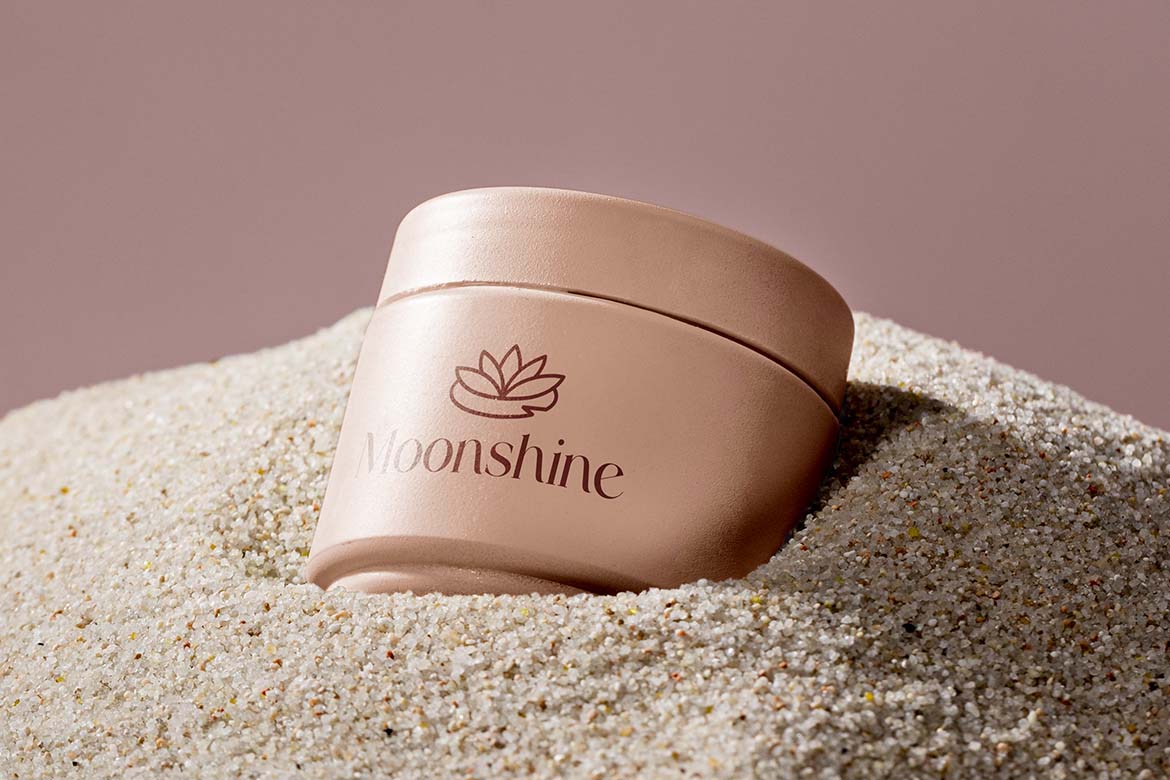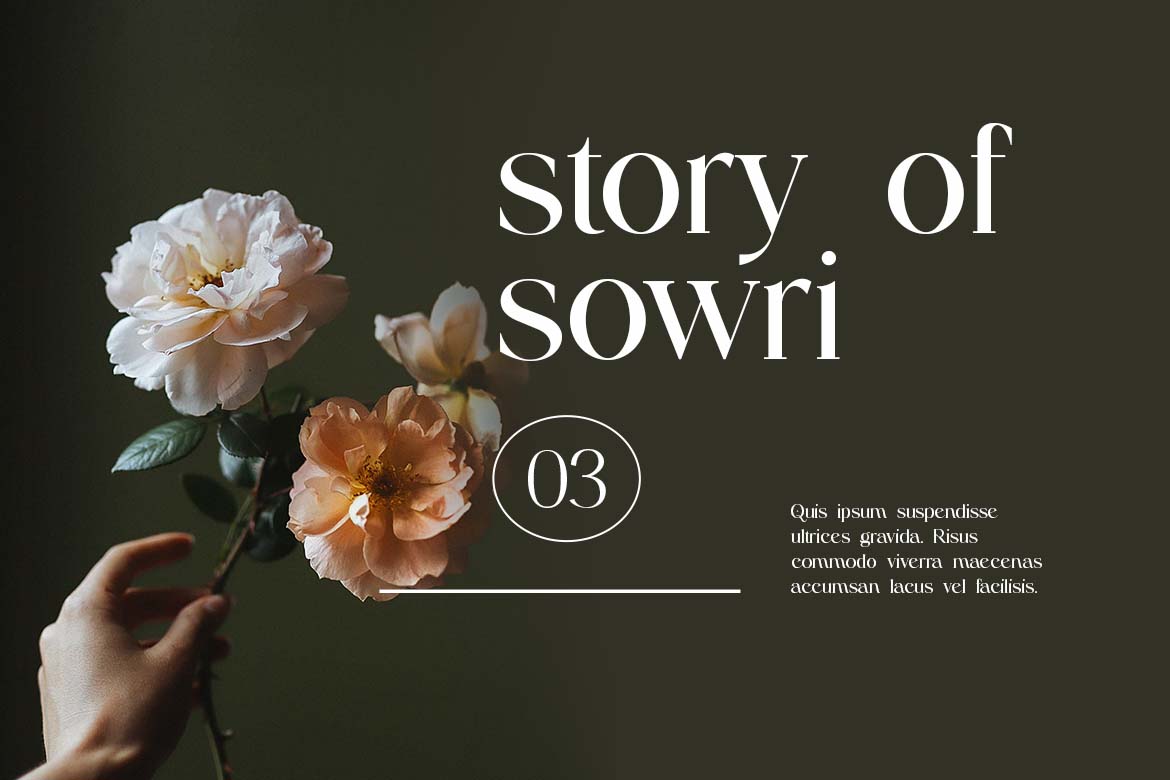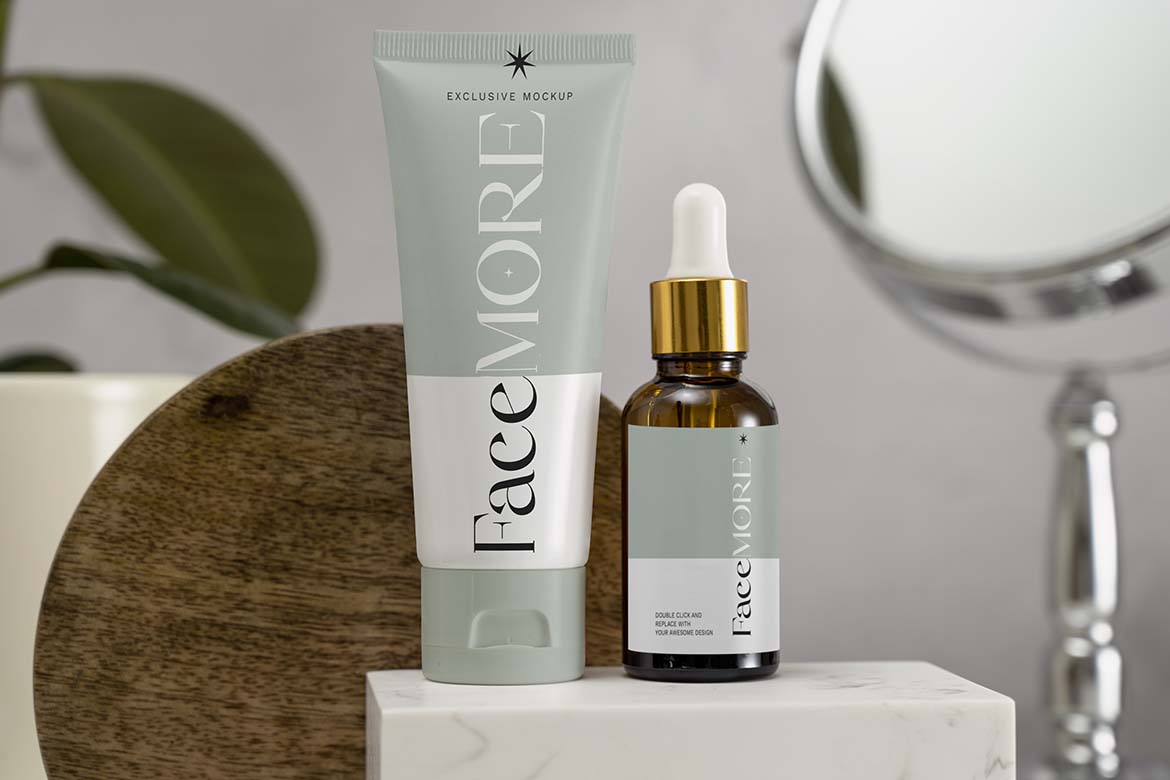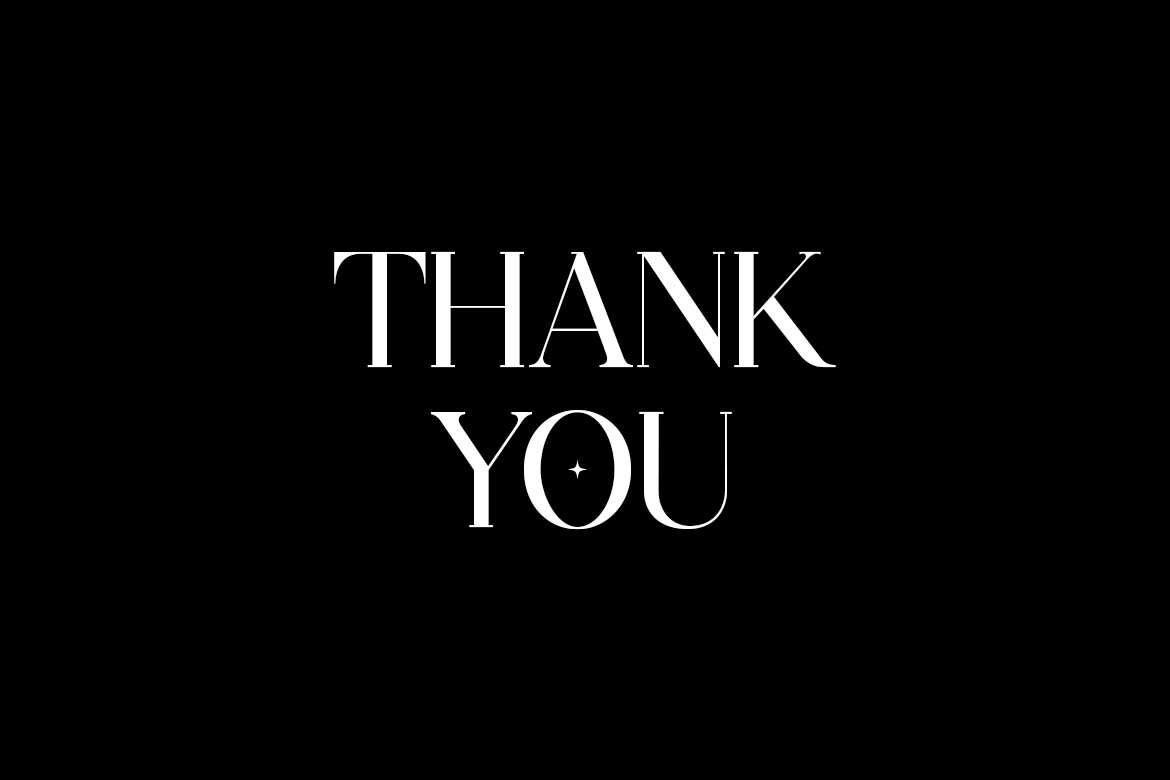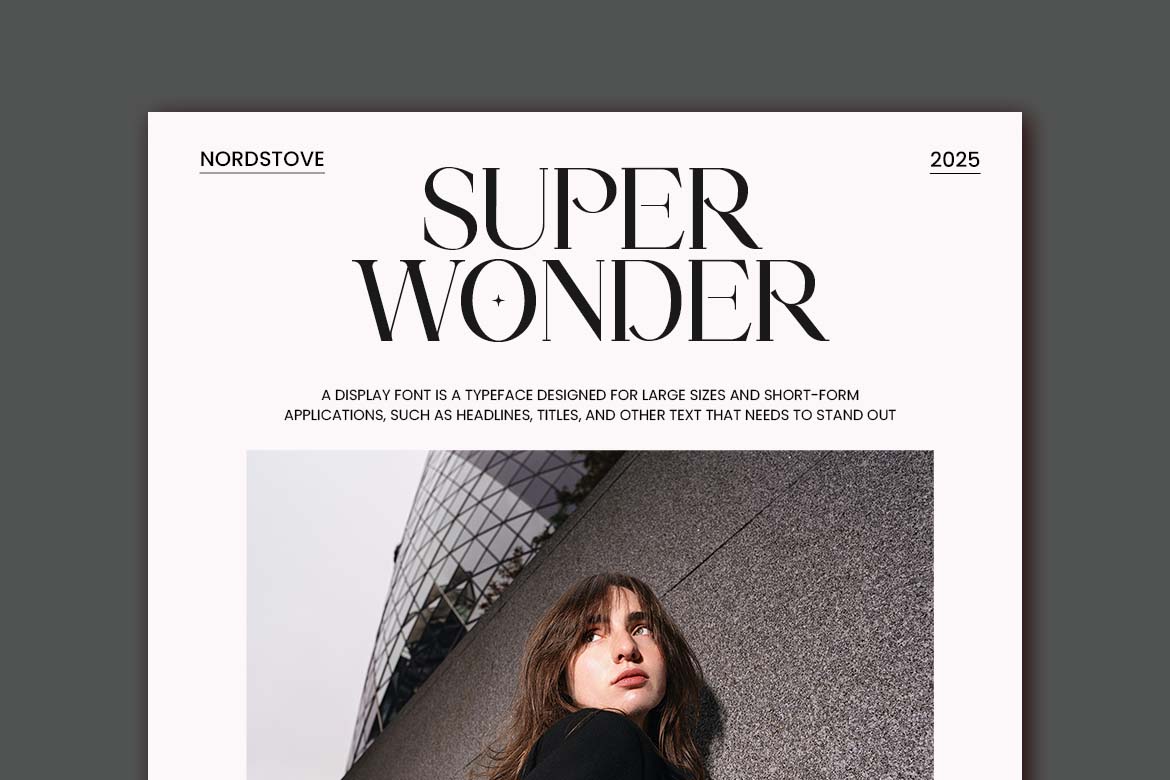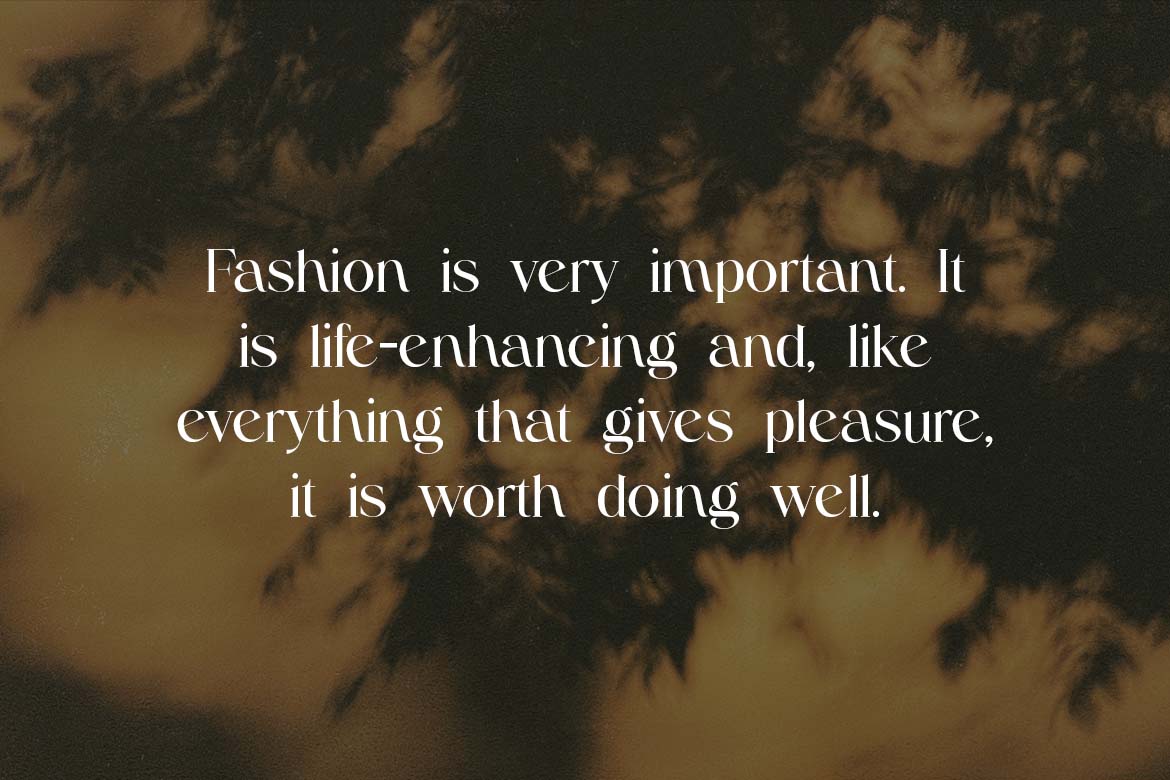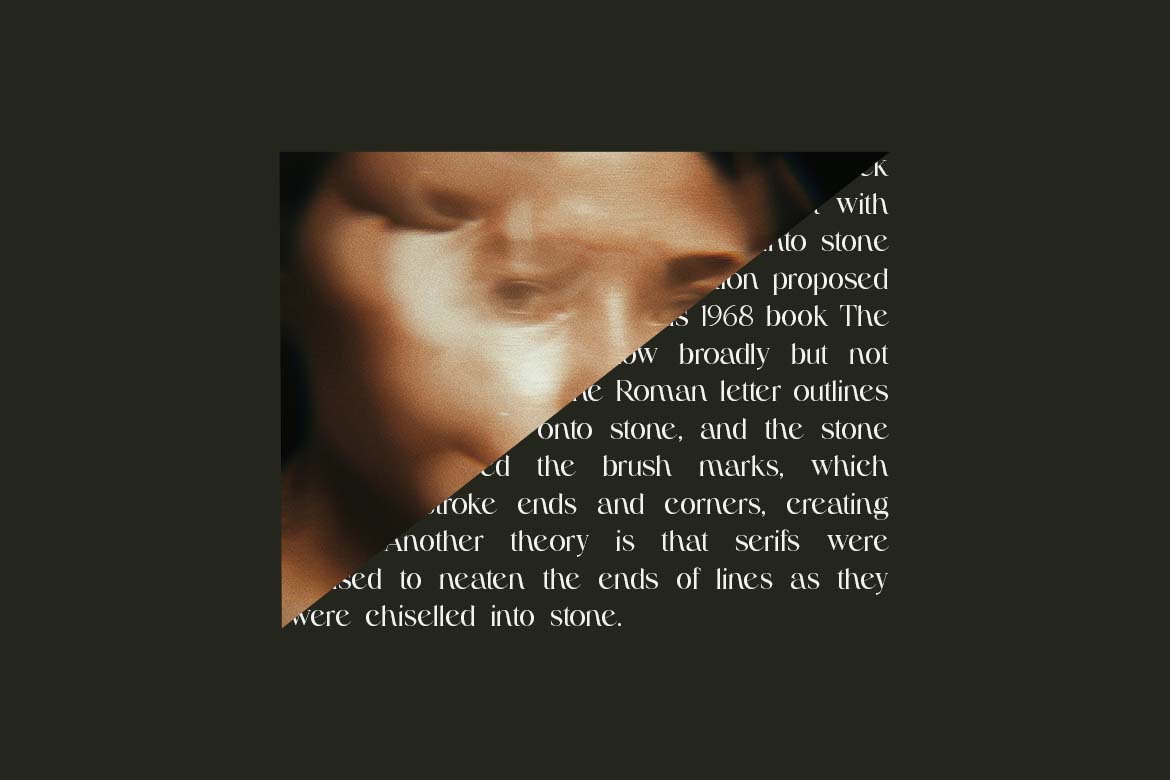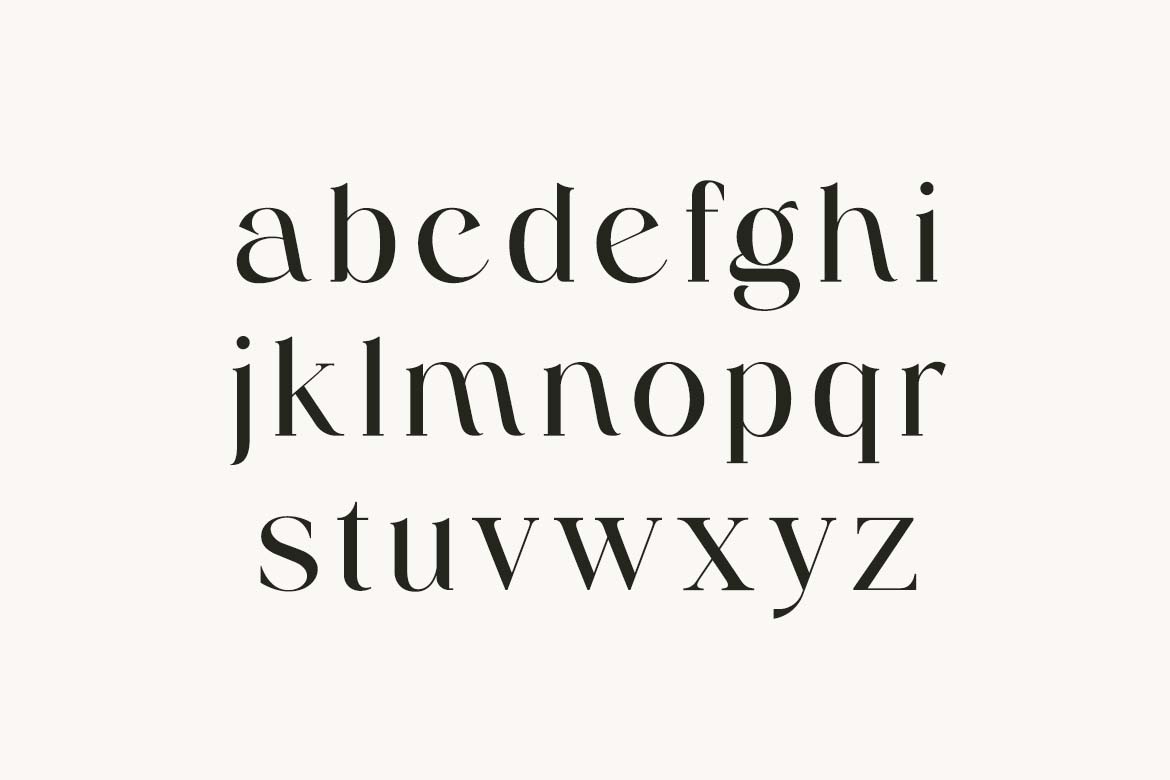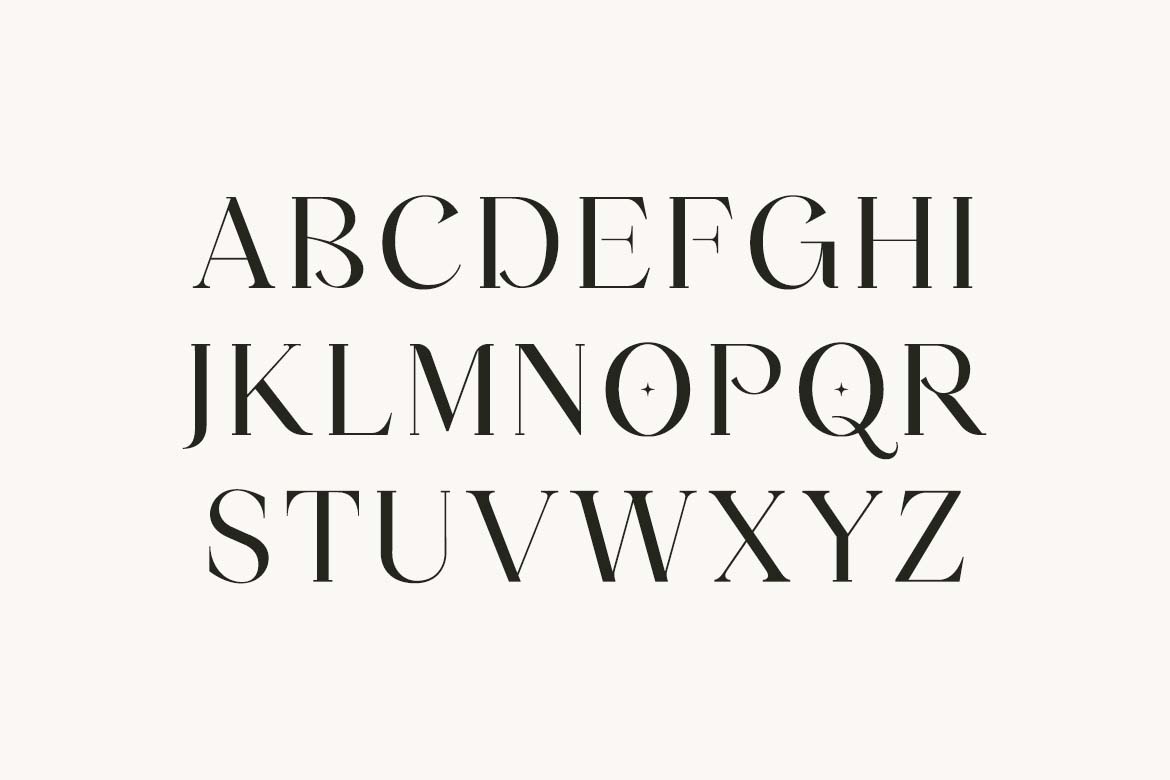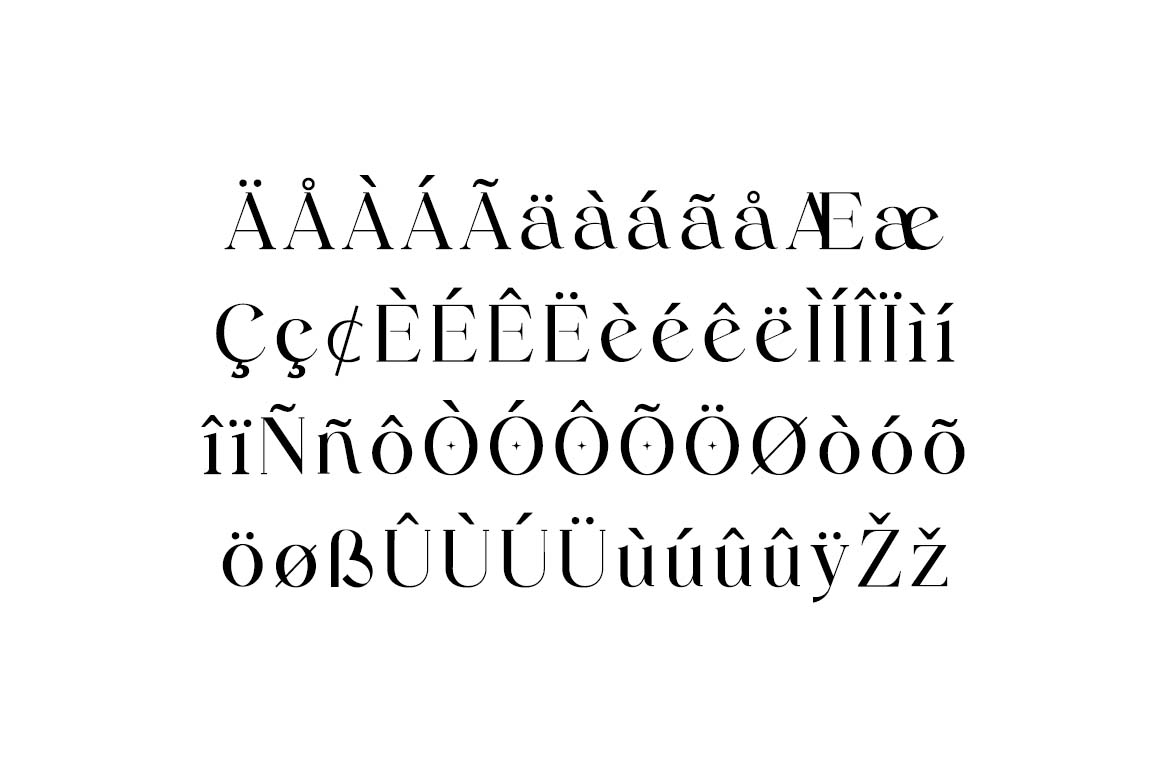
Biltmore Grace Ligature Luxury Serif Font
Biltmore Grace Ligature Luxury Serif Font. The modern display font feels beautiful classy, elegant, and stylish. This font is ideally suited for a wide variety of projects, such as signature, stationery, logo, wedding, typography quotes, magazine or book covers, website headers, branding, and more. Also, fashion-related branding or editorial design displays both masculine and feminine qualities.